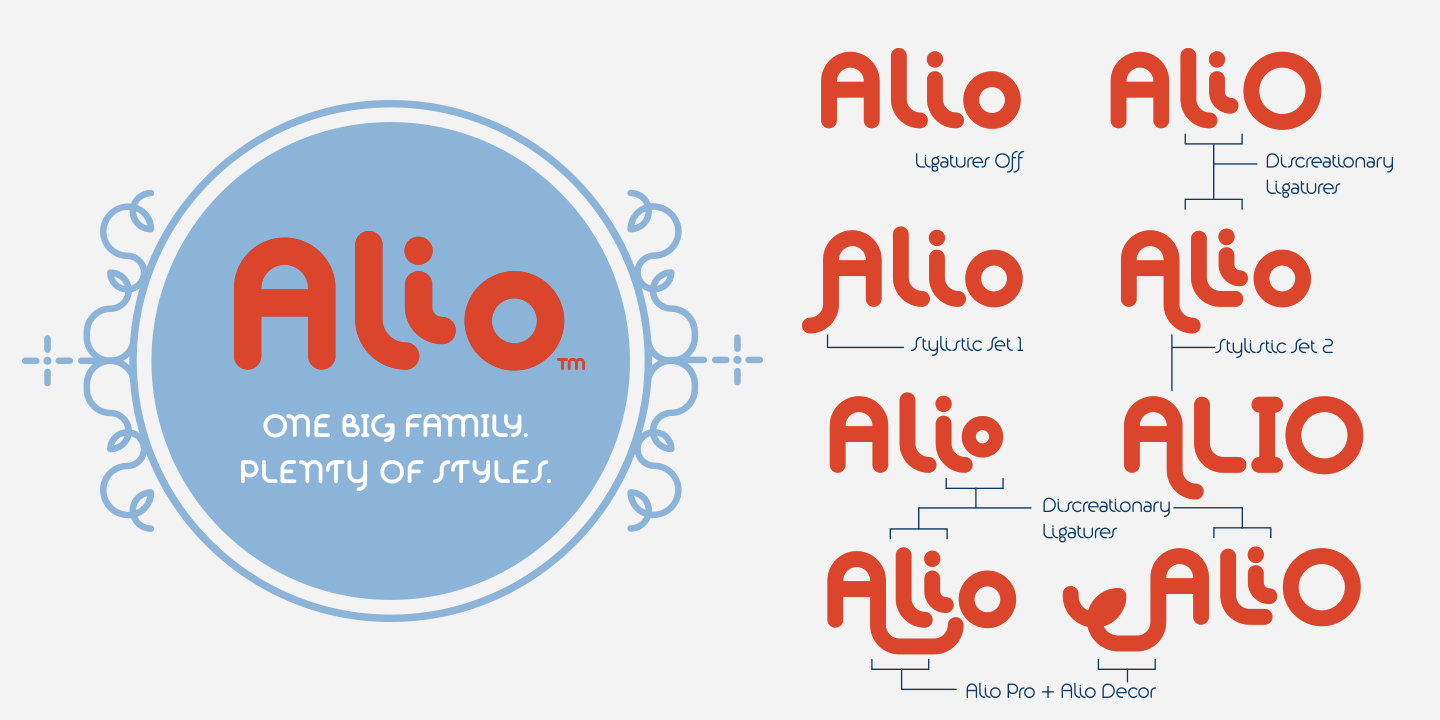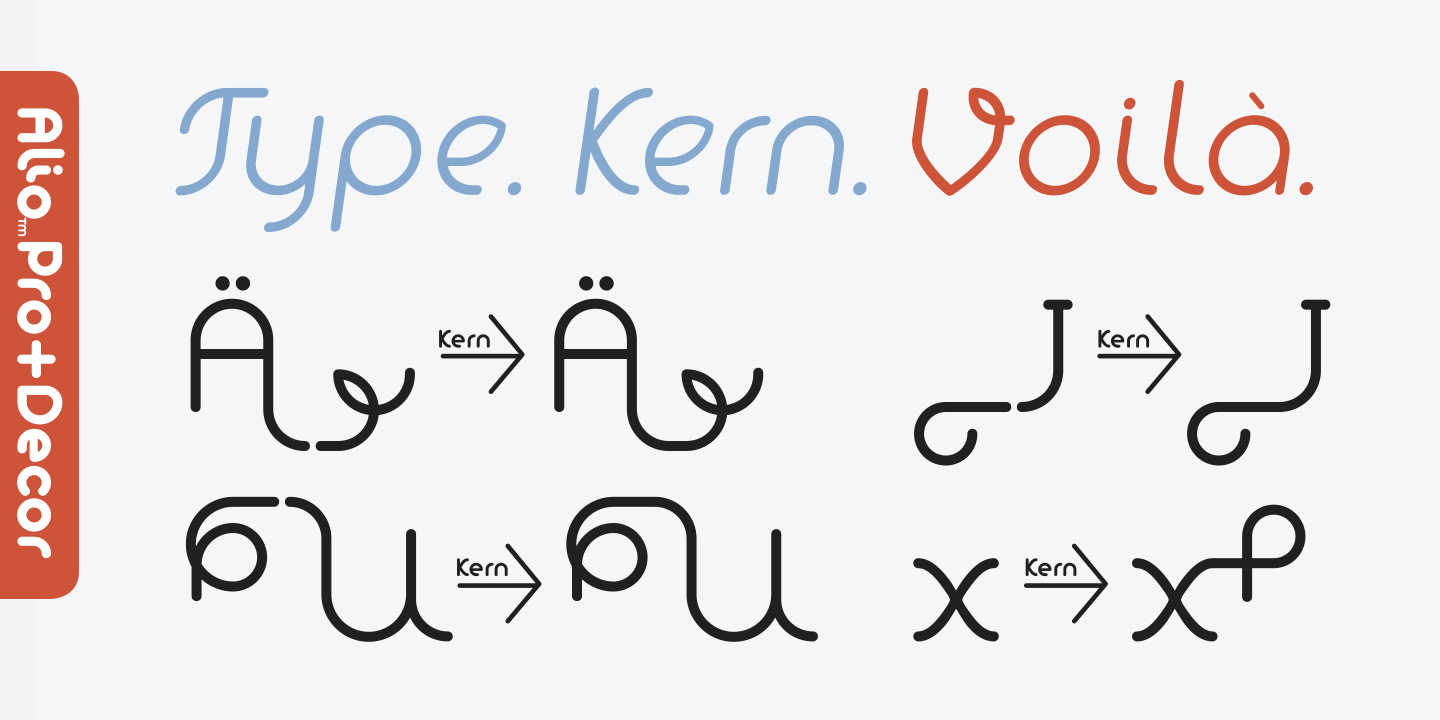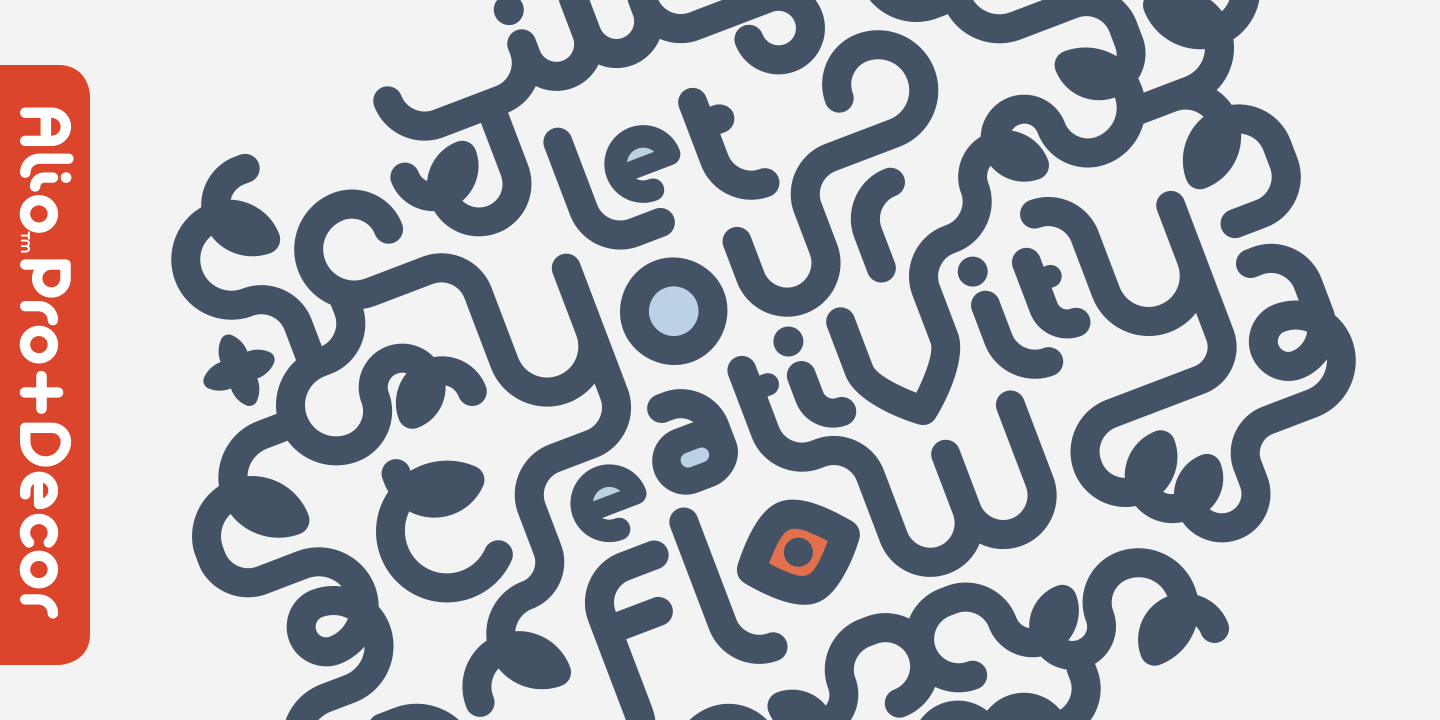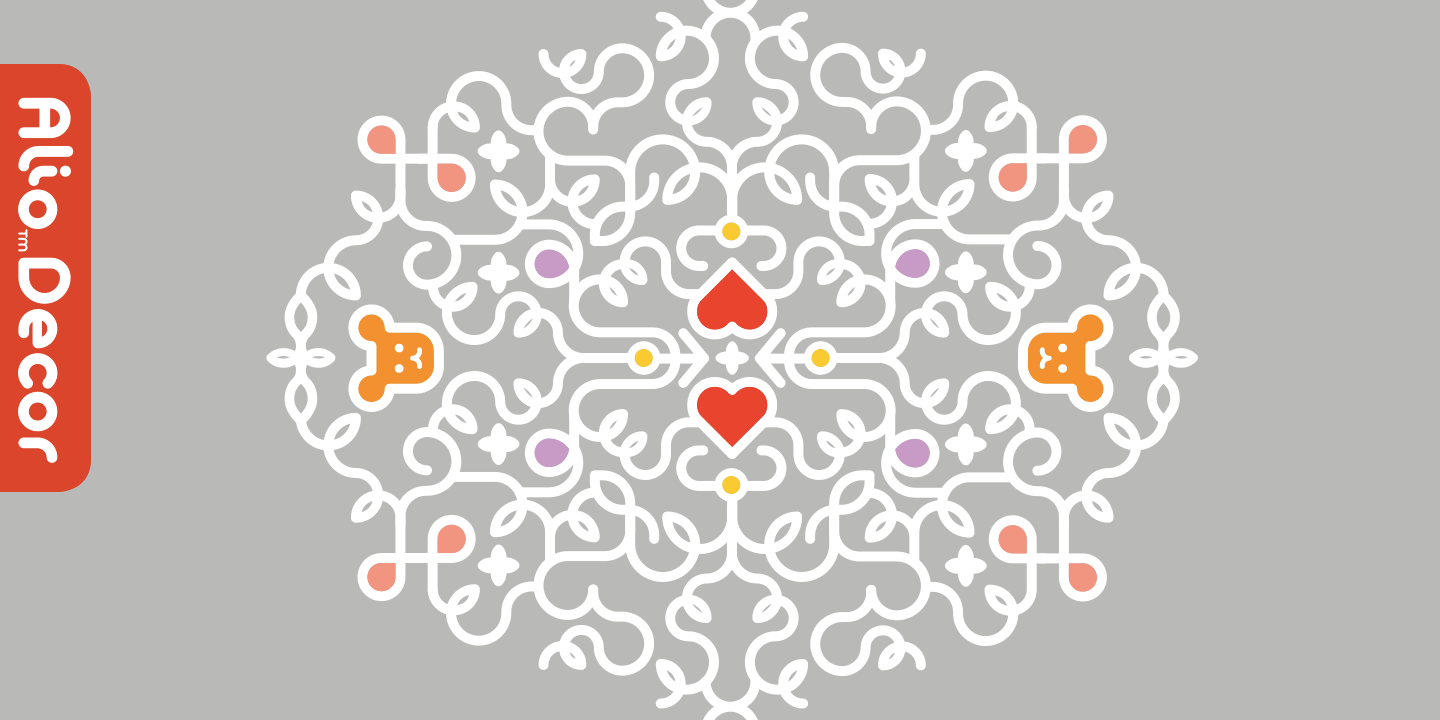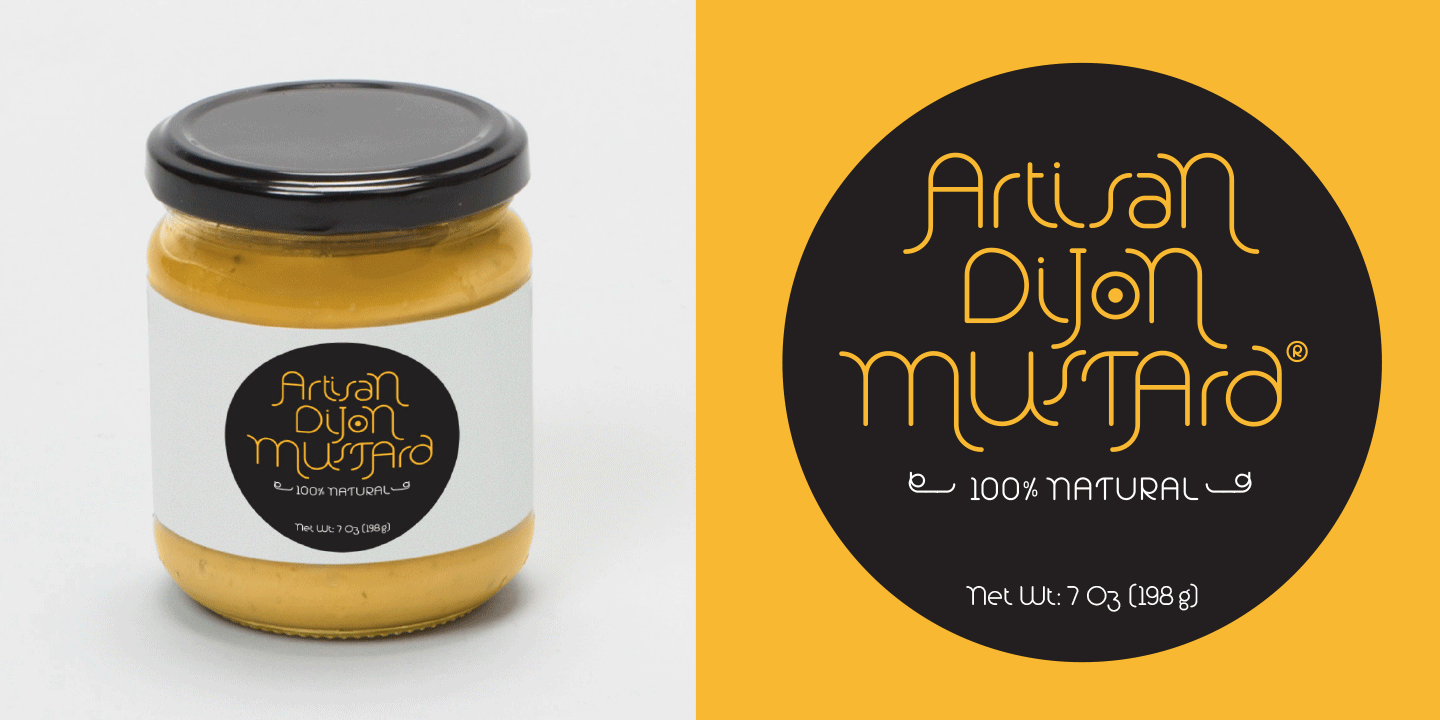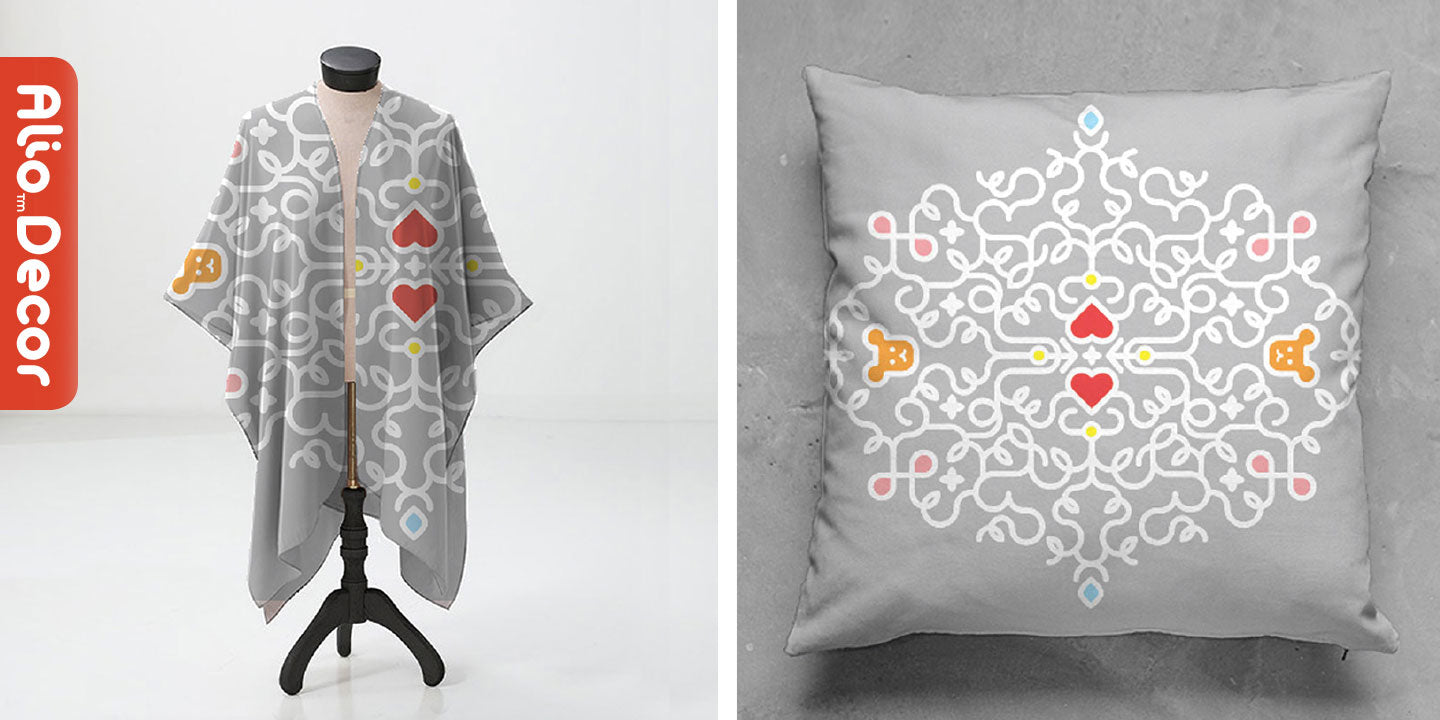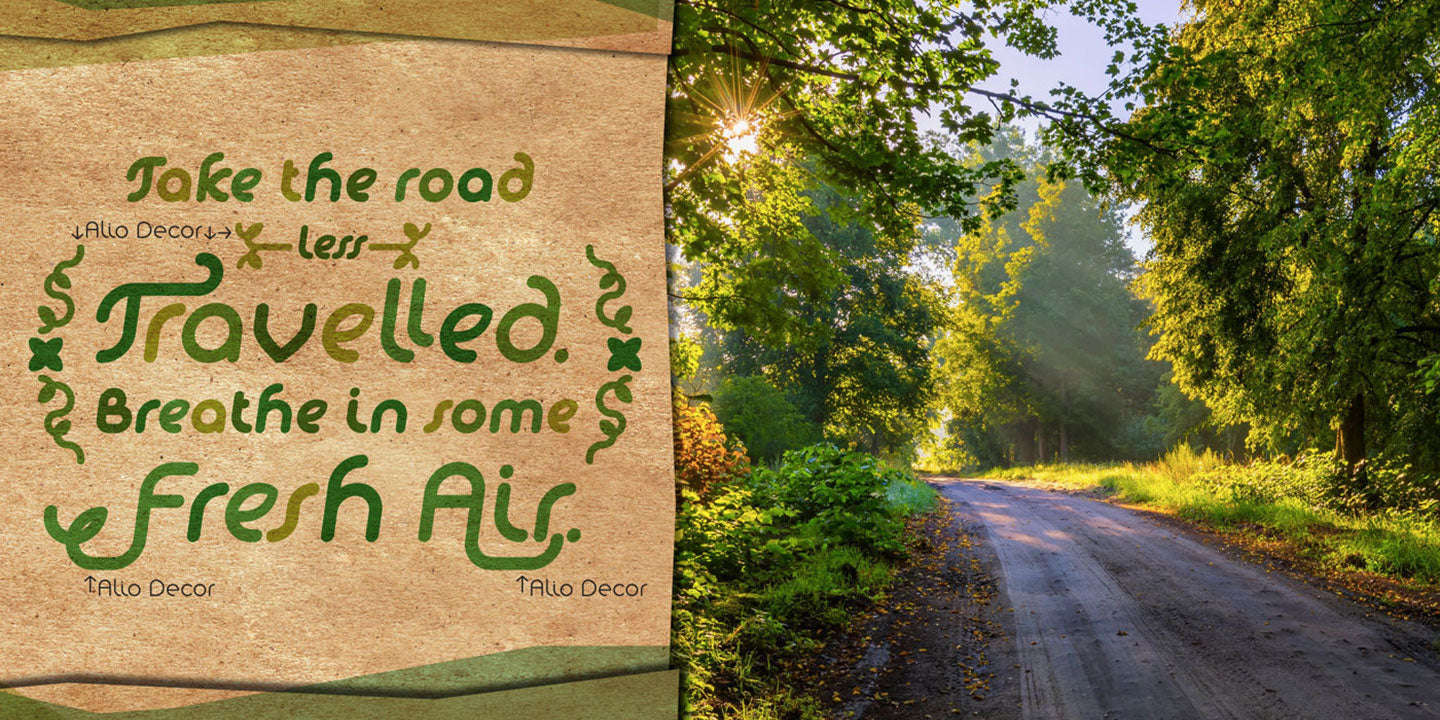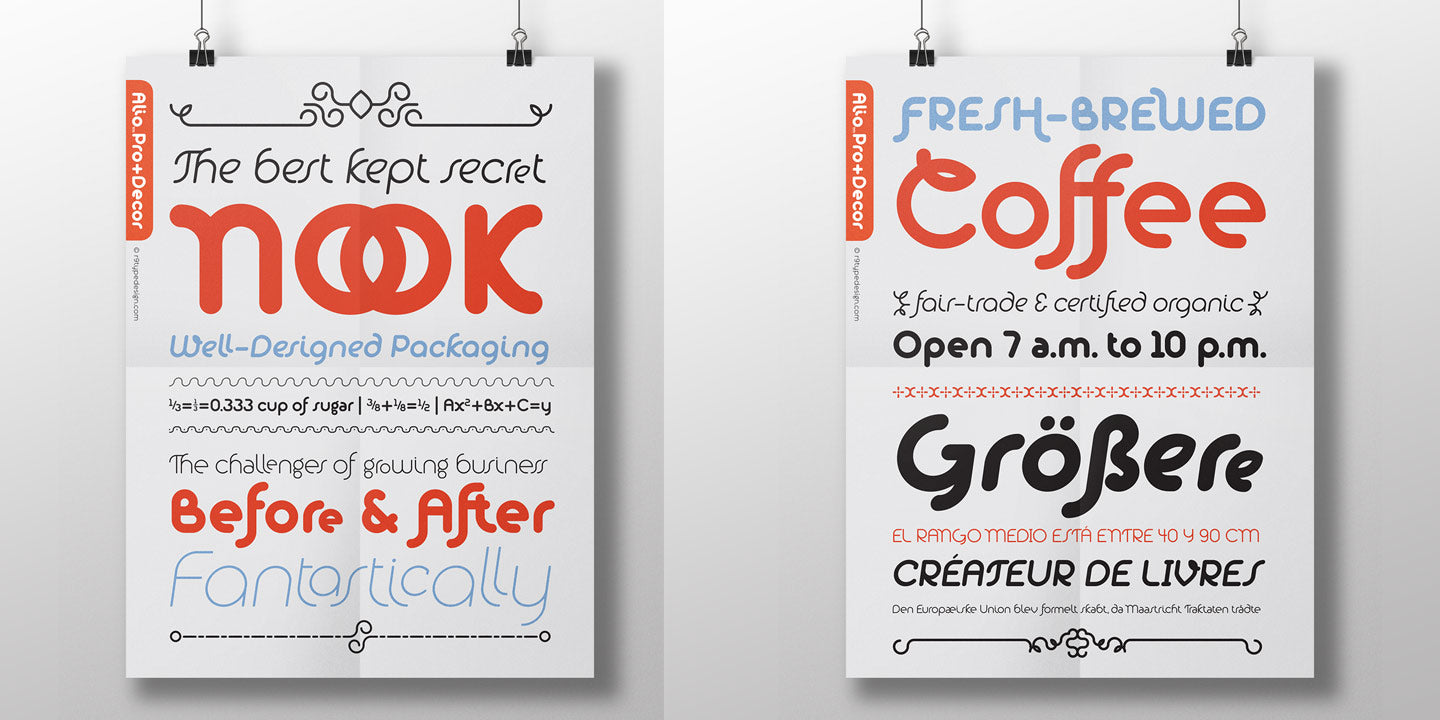
Alio™—Where Sans Serif Meets a Creative Flow.
Alio™ is a unique hybrid, blending the clean lines of a sans serif with the fluid grace of a cursive. This modular design gives you endless options to play and create. Simply let your creativity flow, and you'll find it easy to craft everything from minimalistic, modern designs to elegant, decorative flourishes.
• Alio Decor: More than just a companion, this decorative set is designed for creating fun and intricate flourish designs. It works seamlessly with Alio Pro to help you craft stunning type treatments, unique invitation designs, decorative headers, and special event materials.